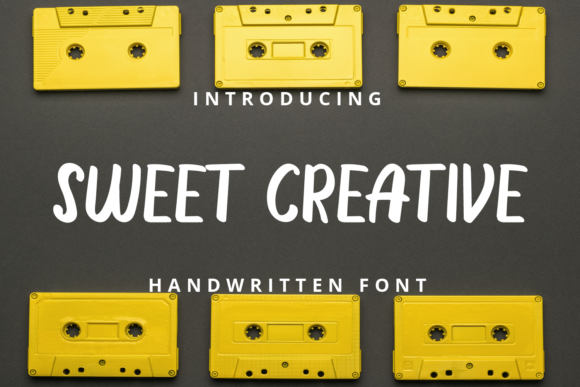
Sweet Creative: The Handwritten Font for Marketers
In the fast-paced world of digital marketing, visual consistency is not just a nice-to-have; it is the backbone of brand recognition. As content creators and social media managers, we are constantly battling for attention in saturated feeds. Every pixel counts, and every typeface choice sends a subconscious signal to our audience. This is where Sweet Creative steps in. More than just a collection of glyphs, this script handwritten typeface offers a strategic advantage for those looking to humanize their brand voice while maintaining professional polish.
Sweet Creative is defined by its cool, playful, and natural aesthetic. Unlike rigid geometric fonts that can feel cold or corporate, this handwritten font mimics the organic flow of human handwriting. It carries a sense of authenticity that resonates deeply with modern consumers who crave genuine connections over polished perfection. For marketers, this means the ability to craft visuals that feel personal, approachable, and inviting. Whether you are designing a Instagram story, a YouTube thumbnail, or a landing page header, Sweet Creative provides the emotional texture needed to stop the scroll.
Elevating Social Media Graphics and Campaign Visuals
Social media platforms are visually driven ecosystems where typography plays a critical role in message delivery. Sweet Creative shines brightest in environments where personality needs to break through the noise. Consider the typical lifecycle of a product launch. You need teaser graphics that build anticipation, announcement posts that drive excitement, and follow-up content that sustains engagement. Using a creative font like Sweet Creative for these assets creates a cohesive narrative thread.
For Instagram posts and Pinterest pins, the font’s unique style allows for flexible layout options. It works exceptionally well for short, punchy headlines or callouts. Because the letters have a natural variance in weight and spacing, they draw the eye immediately. When used on Reels covers or TikTok thumbnails, Sweet Creative ensures that your video content stands out even before the user hits play. The playful nature of the typeface suggests fun and creativity, which is ideal for lifestyle brands, influencers, and businesses targeting a younger, trend-conscious demographic.
However, versatility is key. While it exudes playfulness, Sweet Creative is not limited to casual contexts. Its clean lines and legible structure allow it to adapt to more sophisticated campaigns. For a seasonal promotion, such as a summer sale or holiday giveaway, the font adds a festive, celebratory touch without appearing cluttered. It transforms a standard discount banner into a memorable piece of brand identity content.
Strategic Readability and Visual Hierarchy
A common misconception about script fonts is that they sacrifice readability for style. Sweet Creative disproves this by balancing artistic flair with clear communication. For marketers, readability is non-negotiable. If your audience cannot decipher your message within two seconds, you have lost them. Sweet Creative is designed with open counters and distinct letterforms, ensuring that your headlines remain legible even on small mobile screens.
To maximize impact, use Sweet Creative strictly for display purposes. It is ideal for titles, logo marks, and decorative accents, but it should not be used for body copy. The secret to effective modern typography lies in contrast. Pair Sweet Creative with a clean sans serif font for your captions, subheaders, and informational text. This combination creates a strong visual hierarchy: the handwritten font grabs attention and sets the mood, while the sans serif provides clarity and context. Alternatively, pairing it with a classic serif font can create an editorial look, perfect for blog headers or magazine-style digital ads.
When designing for digital banners or email headers, consider the viewing context. Most users will see your content on a smartphone. Test your designs at reduced sizes to ensure the intricate details of the handwritten style do not blur or become illegible. Sweet Creative holds up well in these scenarios, provided you maintain sufficient contrast between the text color and the background. High-contrast combinations, such as dark text on a light background or vice versa, enhance visibility and ensure your message is received clearly.
Building Brand Recognition Through Consistent Typography
Brand recognition is built through repetition and consistency. By adopting Sweet Creative as part of your core design assets, you create a visual signature that audiences begin to associate with your brand. Over time, the mere sight of this specific handwritten style can trigger brand recall, even before the user reads your logo. This is the power of a well-chosen typeface.
Think about your content series. If you run a weekly webinar, a monthly newsletter, or a daily tip series, using Sweet Creative for the title graphic creates a recognizable template. Followers scrolling through their feed will instantly recognize the format, increasing the likelihood of engagement. This consistency extends to web design elements as well. Using the font for hero section headlines or testimonial quotes on your website reinforces the brand personality established on social media, creating a seamless omnichannel experience.
In conclusion, Sweet Creative is more than a decorative element; it is a strategic tool for digital communication. By leveraging its natural, playful style, marketers can enhance audience engagement, improve visual hierarchy, and strengthen brand identity. In a digital landscape dominated by generic templates, choosing a distinctive commercial font like Sweet Creative allows your brand to speak with a unique, human voice. Embrace the limitlessness of your imagination and let this typeface elevate your next campaign.